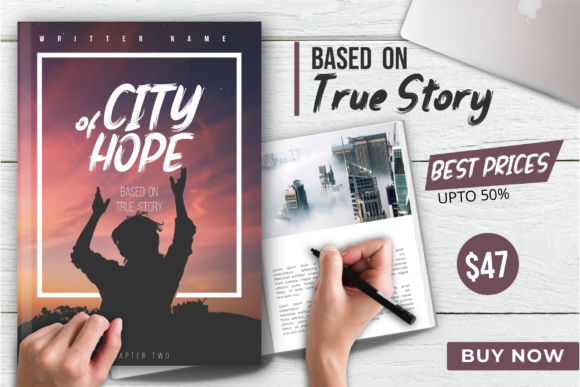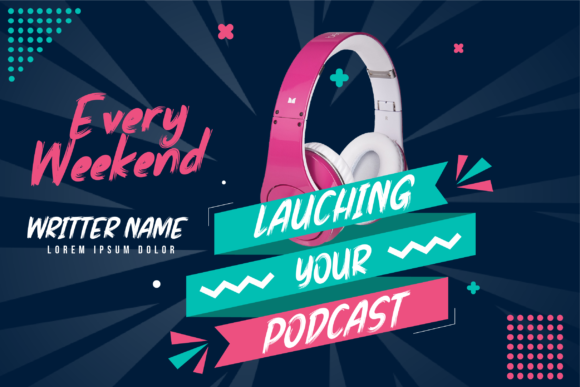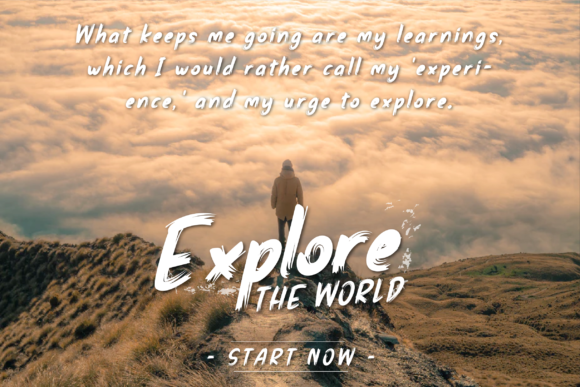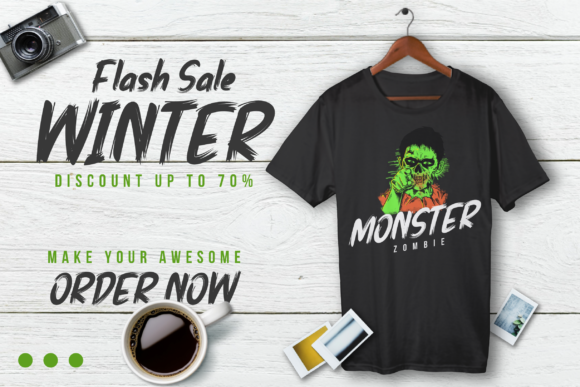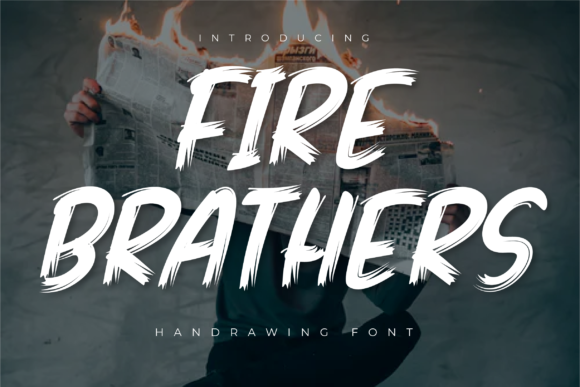
The Ultimate Display Font: Fire Brathers
I’ll never forget the moment I stumbled upon the perfect font for a client’s branding project. I had been searching for hours, trying out different combinations, but nothing seemed quite right. That was until I discovered Fire Brathers, an incredibly unique display font that instantly elevated my design game. In this article, I’ll share my experience with Fire Brathers, its features, and how to make the most of this stunning font.
Fire Brathers is a masterfully designed font that has become a true favorite in my design toolkit. Here’s what I love about it:
- ✨ Unique and eye-catching design that’s sure to turn heads
- ✅ Highly legible, even at large sizes
- 🔥 Excellent for titles, headings, and display text
- 💻 Works beautifully on both digital and print materials
While Fire Brathers is an exceptional font, there are a few quirks to keep in mind:
- 🤔 May not be the best choice for body text or long paragraphs
- ⚠️ Some characters may require manual kerning for optimal spacing
The Story Behind Fire Brathers
Fire Brathers was designed by a team of passionate typographers who aimed to create a unique display font that would inspire creativity. The font’s distinctive design is inspired by the art of fire breathing, with bold, flowing lines that evoke a sense of energy and movement.
| Q: What type of projects is Fire Brathers best suited for? | A: Fire Brathers is perfect for titles, headings, and display text in creative projects, branding, and advertising. |
| Q: Can I use Fire Brathers for body text? | A: While Fire Brathers is highly legible, it’s not recommended for long paragraphs or body text. Instead, use it for titles and headings to add visual interest. |
| Q: Does Fire Brathers support OpenType features? | A: Yes, Fire Brathers supports OpenType features, including ligatures, stylistic alternates, and glyphs. |
Overall, Fire Brathers is an exceptional display font that can elevate your designs to new heights. With its unique design, excellent legibility, and advanced features, it’s a valuable addition to any designer’s toolkit.